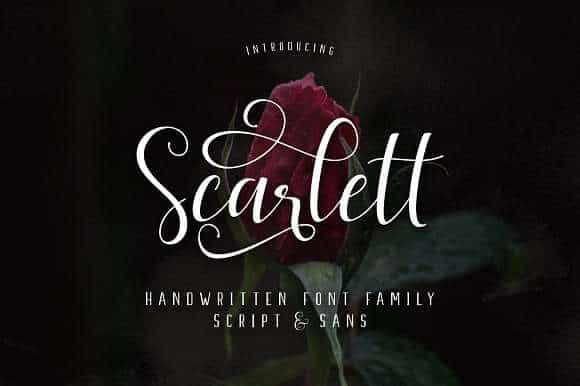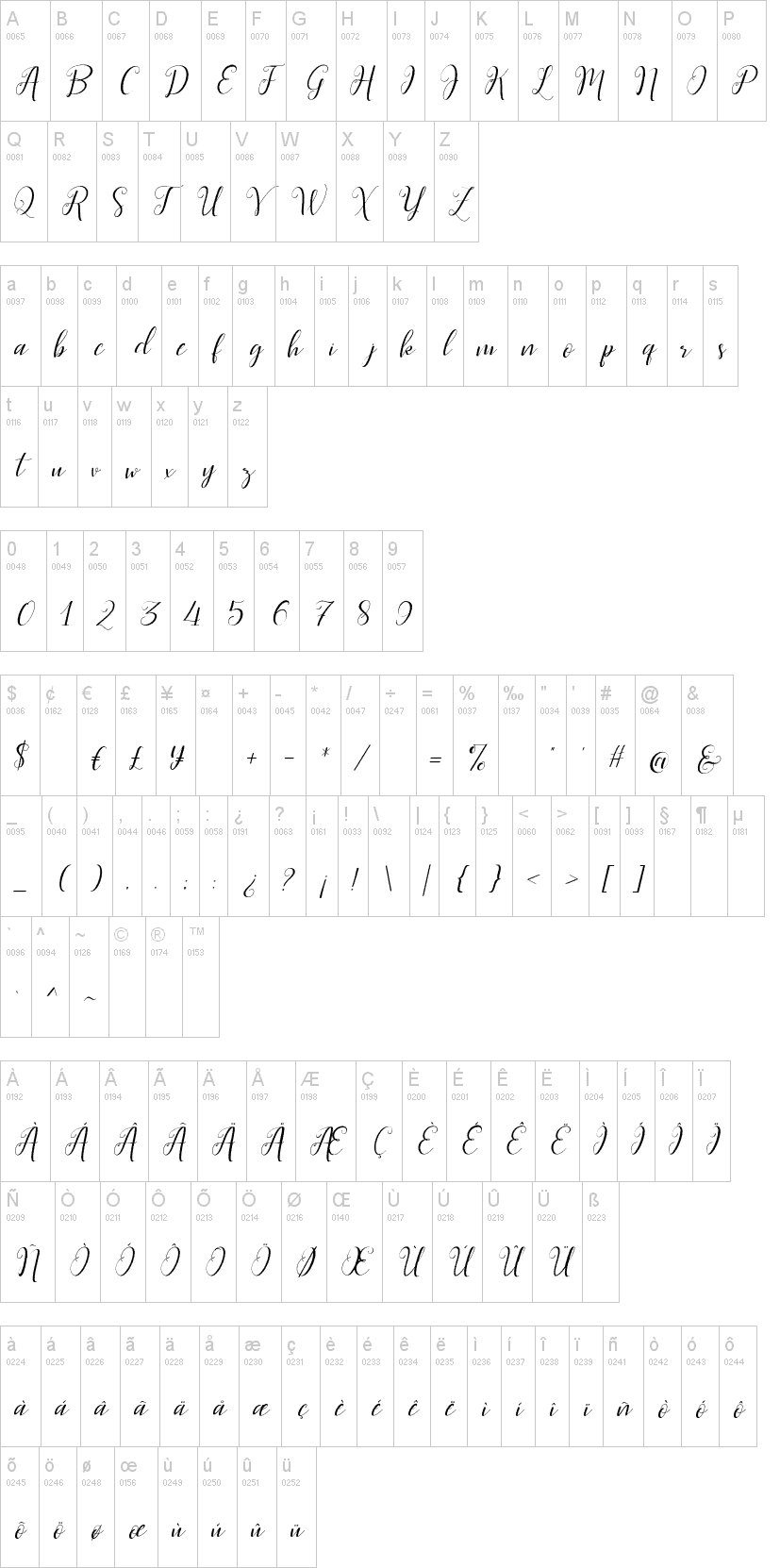
Scarlett Script is an excellent Calligraphy font created by Ferdiansyah and is free for download and personal use. The free version offers all the letters in the upper and lower case and some of the special characters as well.